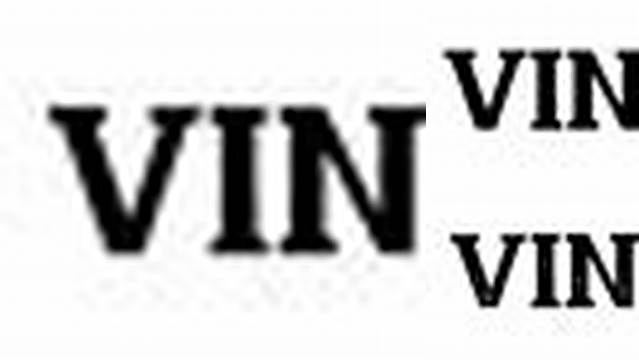
Vintage Fonts Collection: VFC Rewizor Press
Hey guys! Diving into the world of vintage fonts is like taking a trip back in time. Today, we’re exploring the Vintage Fonts Collection (VFC) Rewizor Press, a treasure trove of typefaces that evoke nostalgia and old-world charm. Whether you're a designer, a history buff, or just someone who appreciates the beauty of classic typography, this collection has something special for you. Let’s get started and uncover what makes these fonts so captivating!
What is VFC Rewizor Press?
Alright, so what exactly is the Vintage Fonts Collection (VFC) Rewizor Press? Well, it's basically a curated selection of vintage fonts that have been digitized and made available for modern use. These fonts often replicate the styles of typefaces used in the early to mid-20th century, think old posters, newspapers, and books. The Rewizor Press part probably refers to the specific foundry or entity that compiled and released this particular collection. The beauty of these collections is that they allow us to easily incorporate a sense of history and authenticity into our designs. Instead of trying to mimic the look of vintage typography, you can use the real deal! This adds a layer of depth and genuineness that’s hard to replicate otherwise. Plus, these fonts often come with a unique set of quirks and imperfections that only add to their character. It’s like using a real piece of history in your work, making it stand out from the crowd and giving it a distinct, memorable vibe. So, if you’re looking to add some old-school flair to your projects, the VFC Rewizor Press might just be the perfect place to start.
The Appeal of Vintage Typography
What's the big deal about vintage typography, anyway? Why are so many designers and creatives drawn to these old-fashioned fonts? Well, there's a certain timeless quality to vintage fonts that makes them endlessly appealing. They evoke feelings of nostalgia, reminding us of simpler times and classic designs. Unlike modern, ultra-clean fonts, vintage typefaces often have unique quirks and imperfections that give them character and personality. Think about old movie posters, antique advertisements, or even vintage packaging. These designs often feature bold, striking fonts that immediately grab your attention. And it's not just about aesthetics; using vintage typography can also add a sense of authenticity to your projects. It can help you tell a story, connect with your audience on a deeper level, and create a lasting impression. Plus, let's be honest, they just look cool! Whether you're working on a logo, a website, or a print design, incorporating vintage fonts can instantly elevate your work and give it a unique, memorable vibe. It’s all about blending the old with the new to create something truly special. So next time you're looking for a font that stands out, give vintage typography a try – you might just discover your new favorite.
Key Characteristics of VFC Rewizor Press Fonts
Alright, let's dive into what makes VFC Rewizor Press fonts stand out. Generally, these fonts are known for their distinct characteristics rooted in early to mid-20th-century design. You'll often find serifs that are more pronounced and stylized compared to modern fonts. Think of fonts with elegant, decorative serifs that add a touch of sophistication and formality. In terms of weight, many VFC Rewizor Press fonts feature bold and impactful letterforms, perfect for headlines and display purposes. They're designed to grab attention and make a statement. You might also notice slight imperfections and irregularities in the letterforms, which add to their authentic, vintage feel. These imperfections aren't flaws; they're part of what makes these fonts so unique and charming. Many of the fonts will have a narrower letter spacing or a taller x-height giving the overall feel of the font a compressed yet readable appeal. Finally, the VFC Rewizor Press typically includes a wide range of styles and variations within each font family, giving you plenty of options to play with. From light and airy to bold and commanding, there's a vintage font to suit every project and aesthetic.
How to Use Vintage Fonts Effectively
So, you've got your hands on some awesome vintage fonts – now what? Using them effectively is key to making your designs shine. First off, consider the context. Vintage fonts work best when they complement the overall theme and message of your project. For example, if you're designing a poster for a classic film festival, using vintage typography would be a perfect fit. Think about hierarchy and legibility. While vintage fonts can be eye-catching, they're not always the easiest to read in large blocks of text. Use them sparingly for headlines, logos, or short phrases, and pair them with a cleaner, more legible font for body text. Don't be afraid to experiment with different combinations until you find something that works. Pay attention to spacing and kerning. Vintage fonts often have unique spacing requirements, so you might need to adjust the kerning (the space between letters) to achieve a balanced and visually appealing look. Finally, remember that less is often more. Vintage fonts are already packed with character, so you don't need to go overboard with other design elements. Keep your layout clean and simple to let the vintage typography take center stage. With a little creativity and attention to detail, you can use vintage fonts to create stunning designs that capture the essence of a bygone era.
Pairing VFC Rewizor Press Fonts with Modern Typefaces
One of the coolest ways to use vintage fonts is by pairing them with modern typefaces. This creates a dynamic contrast that can make your designs really pop. The key is to find a balance between the old and the new. When choosing a modern font to pair with a VFC Rewizor Press font, look for something clean, simple, and highly legible. A sans-serif font like Helvetica, Arial, or Open Sans can work well, as their simplicity will help to highlight the unique characteristics of the vintage typeface. Think about contrast in weight and style. If your vintage font is bold and decorative, try pairing it with a lighter, more understated modern font. Conversely, if your vintage font is more delicate, you could pair it with a bolder modern font to create a sense of balance. Experiment with different combinations and see what feels right for your project. Don't be afraid to break the rules and try something unexpected. The goal is to create a visually appealing and harmonious design that captures attention and communicates your message effectively. Pairing vintage with modern is one way to add contrast and interest to typography design. Using font combinations that add variety, will always be an effective skill to enhance your design.
Inspiration from Rewizor Press Era Designs
To really get the most out of the VFC Rewizor Press, it helps to draw inspiration from the designs of that era. This means looking at old posters, advertisements, book covers, and other printed materials from the early to mid-20th century. Pay attention to the way vintage fonts were used in these designs. Notice the letter spacing, the kerning, and the overall layout. How did designers of the time combine different vintage fonts to create a cohesive and visually appealing look? What colors and graphics did they use to complement the typography? Immerse yourself in the visual culture of the Rewizor Press era, and you'll start to develop a better understanding of how to use vintage fonts effectively in your own work. You'll also gain a deeper appreciation for the craftsmanship and artistry that went into creating these classic designs. So, hit the library, browse online archives, and soak up all the vintage design inspiration you can find. The more you learn about the context in which these fonts were originally used, the better equipped you'll be to use them in a way that feels authentic and meaningful.
Incorporating VFC Fonts into Logo Design
Using VFC fonts in logo design can give your brand a unique and memorable identity. Vintage logos have a certain timeless appeal that can help you stand out from the competition. When choosing a VFC Rewizor Press font for your logo, consider the overall message and aesthetic you want to convey. A bold, classic serif font can communicate a sense of tradition and authority, while a more whimsical, decorative font can evoke feelings of playfulness and creativity. Think about scalability and legibility. Make sure your logo looks good at both large and small sizes. Choose a font that is easy to read, even when it's reduced to a tiny size on a business card or website favicon. Pay attention to the kerning and letter spacing. Adjust the spacing between letters to create a balanced and visually appealing look. You may also want to customize the font by adding unique ligatures or modifying certain letterforms to make it truly your own. Finally, remember that your logo is just one element of your brand identity. Make sure it works well with your brand colors, imagery, and overall messaging. With a little creativity and attention to detail, you can use VFC fonts to create a logo that is both visually stunning and deeply meaningful.
VFC Rewizor Press for Web Design
Integrating VFC Rewizor Press fonts into web design can add a touch of nostalgia and character to your online presence. However, it's important to use them judiciously to ensure optimal readability and user experience. When selecting vintage fonts for your website, prioritize legibility. Choose fonts that are easy to read on screens, especially for body text. Bold, highly decorative fonts may look great in headings or logos, but they can be tiring to read in large blocks of text. Consider using vintage fonts for headings, subheadings, or other decorative elements, and pair them with a cleaner, more legible font for the main body text. This will help you create a visually appealing design without sacrificing readability. Optimize for different devices and browsers. Test your website on various devices and browsers to ensure that your chosen vintage fonts render correctly. Some vintage fonts may not display properly on certain platforms, so it's important to check for compatibility issues. Use CSS to control the appearance of your vintage fonts. You can use CSS properties like font-size, line-height, letter-spacing, and text-shadow to fine-tune the look of your vintage typography and create a visually appealing design. By following these tips, you can effectively incorporate VFC Rewizor Press fonts into your web design and create a unique and memorable online experience for your visitors.
Retro Design Elements and VFC Fonts
To really nail that retro vibe, pair your VFC fonts with other design elements that evoke the same era. Think about using vintage-inspired color palettes, such as muted pastels, earthy tones, or bold primary colors. These colors can help to create a cohesive and authentic retro aesthetic. Incorporate vintage textures and patterns into your designs. Textures like grain, grunge, or halftone patterns can add a sense of age and authenticity to your work. Look for free or premium resources online, or create your own textures using Photoshop or other design software. Use vintage illustrations and graphics. Incorporate illustrations and graphics that are reminiscent of the era you're trying to evoke. Think about old advertisements, posters, or packaging designs. You can find vintage illustrations online, or create your own using vector graphics software. Pay attention to layout and composition. Retro designs often feature specific layout and composition techniques, such as asymmetrical layouts, bold typography, and geometric shapes. Study examples of retro design to learn how to effectively use these techniques in your own work. Experiment with different combinations of vintage fonts, colors, textures, and graphics to create a unique and visually appealing retro design. Remember that the key is to create a cohesive and authentic look that captures the essence of the era you're trying to evoke.
VFC Rewizor Press: A Designer’s Best Friend
In conclusion, the Vintage Fonts Collection (VFC) Rewizor Press is more than just a collection of fonts; it's a designer's best friend. It offers a treasure trove of vintage typefaces that can add character, authenticity, and a touch of nostalgia to your designs. Whether you're working on a logo, a website, a print campaign, or any other type of project, VFC Rewizor Press fonts can help you create designs that are both visually stunning and deeply meaningful. These vintage fonts evoke a sense of history and heritage. They can help you connect with your audience on a deeper level and create a lasting impression. They allow you to create designs that are unique, distinctive, and stand out from the competition. So, if you're looking for a way to elevate your designs and add a touch of vintage charm, give the VFC Rewizor Press a try. You might just discover your new favorite font!